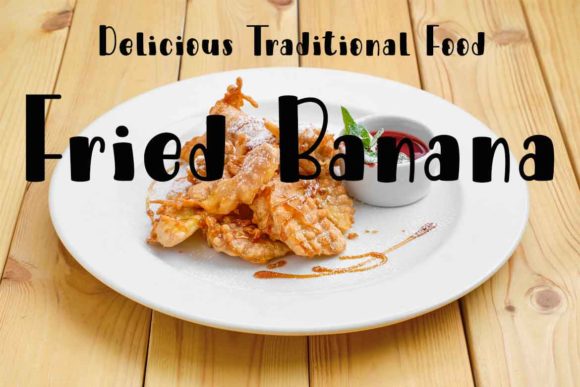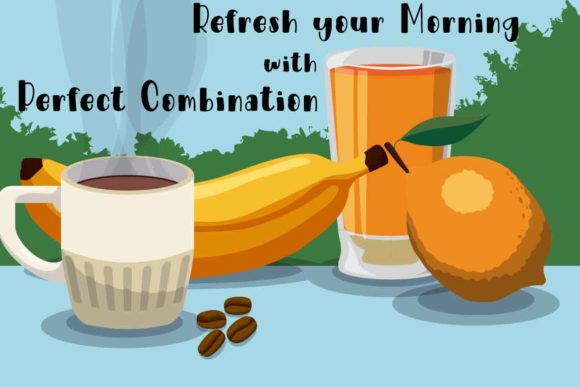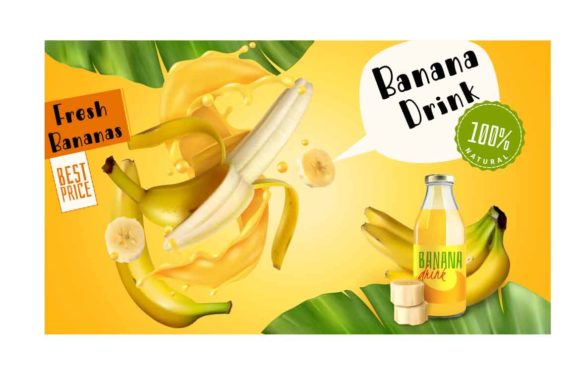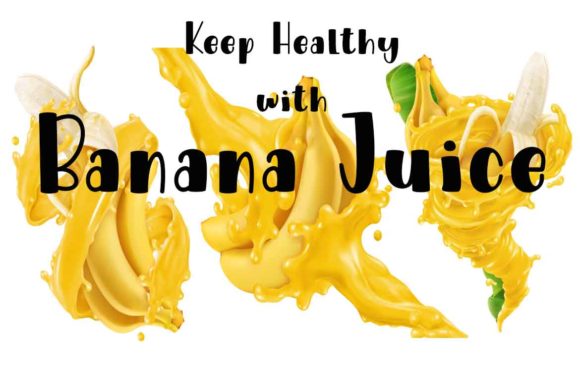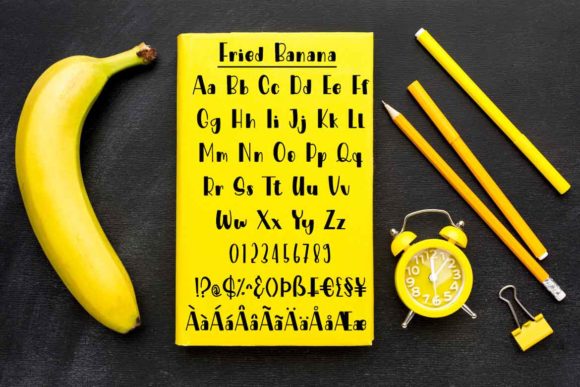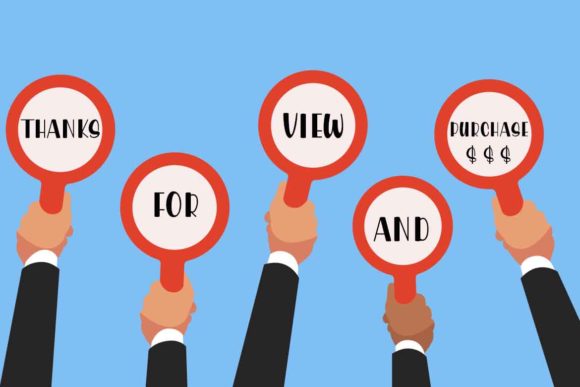
Fried Banana Font: Add a Dash of Quirkiness to Your Designs
Are you tired of using the same old fonts in your designs? Look no further than the Fried Banana font! This enchanting display font is sure to turn any creative idea into a true standout. With its unique playfulness and quirky charm, Fried Banana embodies fun, quirkiness, and authenticity.
The Perfect Font for Creative Projects
Fried Banana font is perfect for designers and crafters looking to add a touch of whimsy to their projects. Whether you’re working on a DIY crafting project, a graphic design project, or a digital illustration, this font is sure to brighten up your work. Its bold and playful letters will add a dash of personality to any design, making it stand out from the crowd.
Unique Characteristics of Fried Banana Font
So, what makes Fried Banana font so special? Here are a few of its unique characteristics:
- Playful Letters: The Fried Banana font features playful, hand-drawn letters that are sure to add a touch of quirkiness to your designs.
- Bold and Eye-Catching: The font is bold and eye-catching, making it perfect for headlines, titles, and other design elements that need to stand out.
- Authentic and Fun: The Fried Banana font embodies a sense of fun and authenticity, making it perfect for designs that need to convey a playful and carefree vibe.
How to Use Fried Banana Font in Your Designs
Using the Fried Banana font in your designs is easy! Here are a few tips to get you started:
- Pair it with Other Fonts: Pair the Fried Banana font with other fonts to create a unique and interesting contrast. For example, you could pair it with a clean and simple font to create a bold and eye-catching headline.
- Use it for Headlines and Titles: The Fried Banana font is perfect for headlines and titles. Use it to add a touch of quirkiness and personality to your design.
- Add it to Your Crafting Projects: The Fried Banana font is also perfect for crafting projects. Use it to add a personal touch to your DIY projects, such as scrapbooking, card making, and other paper crafts.
Tips for Designers
If you’re a designer looking to use the Fried Banana font in your work, here are a few tips to keep in mind:
- Experiment with Different Colors: The Fried Banana font looks great in a variety of colors. Experiment with different colors to find the one that works best for your design.
- Use it to Add Contrast: Use the Fried Banana font to add contrast to your design. For example, you could use it to create a bold and eye-catching headline, and then use a simpler font for the body text.
- Have Fun with it: The Fried Banana font is all about having fun and being playful. Don’t be afraid to experiment and try new things!
Tips for Crafters
If you’re a crafter looking to use the Fried Banana font in your work, here are a few tips to keep in mind:
- Use it to Add a Personal Touch: The Fried Banana font is perfect for adding a personal touch to your crafting projects. Use it to create custom titles, headings, and other design elements.
- Experiment with Different Materials: The Fried Banana font looks great on a variety of materials, from paper to fabric to wood. Experiment with different materials to find the one that works best for your project.
- Get Creative: The Fried Banana font is all about being creative and having fun. Don’t be afraid to experiment and try new things!
In conclusion, the Fried Banana font is a unique and playful font that’s perfect for designers and crafters looking to add a touch of quirkiness to their work. With its bold and eye-catching letters, authentic and fun vibe, and versatility, this font is sure to turn any creative idea into a true standout. So why not give it a try and see what kind of creative projects you can come up with?